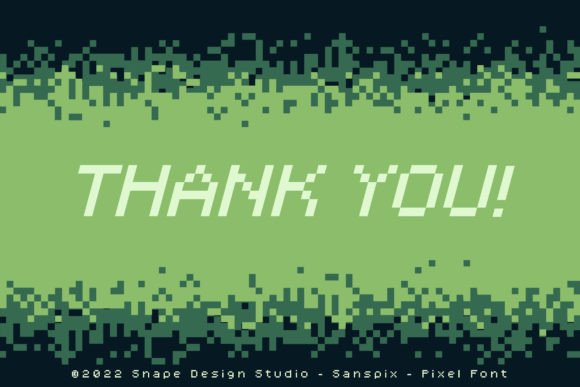
Introduction to Sanspix Font
Have you ever stared at a blank canvas, trying to come up with the perfect design for a retro game or movie poster? The blank space seems to stare back, mocking your creative struggles. But what if you had the perfect design resource to spark your imagination? Enter the Sanspix Font, a retro pixel font style that’s about to revolutionize your creative projects.
This versatile font is not just a design element, but a key to unlocking a world of creative possibilities. With its high-quality, transparent background, the Sanspix Font is perfect for adding a touch of retro charm to your logos, posters, book covers, and more. And the best part? It’s available for free download, making it an invaluable resource for designers of all levels.
Key Features of Sanspix Font
- High-quality design resource ideal for creative projects requiring a clean and modern aesthetic.
- Transparent background, allowing for seamless integration with background images or videos.
- Pixel-perfect design at 300 DPI resolution, ensuring crisp and clear typography in print and digital applications.
- Available in multiple font sizes, from 12pt to 72pt, making it suitable for various design needs.
- Customizable and versatile, suitable for use in logos, headings, body text, and other design elements.
- Designed to be highly legible, even at small font sizes, making it perfect for digital displays and mobile devices.
Honest Review: Sanspix Font
I recently had the opportunity to work with the Sanspix Font, and I must say it’s been a game-changer for my design projects. ✨ This free download has been a fantastic addition to my design resource library.
One of the standout features of the Sanspix Font is its versatility. It’s perfect for any creative project that requires a clean and modern aesthetic. The font is incredibly easy to use, and its transparent background makes it simple to overlay text on images.
- High-quality design that’s perfect for modern projects
- Easy to use and customize
- Transparent background for seamless text overlay
⚠️ While the Sanspix Font is an excellent resource, it’s not without its limitations. The font family is relatively small, with only a few weights and styles available. Additionally, some users may find the font to be a bit too minimalist for their taste.
Overall, I’m thoroughly impressed with the Sanspix Font. It’s a fantastic addition to any design library, and its versatility makes it a must-have for any creative project.
Sanspix Font
The Sanspix Font is a versatile and high-quality design resource perfect for creative projects that require a clean and modern look. With a transparent background, this font is ideal for any design that demands precision and clarity.
Tips for Getting the Most Out of Sanspix Font
For the best results, use Sanspix Font in conjunction with a transparent background to create a seamless design.
Sanspix Font is ideal for:
1. Branding and logos
2. Web design and development
3. Print materials and marketing materials
Montserrat Font is a geometric sans-serif font inspired by the urban landscape of South America. It’s perfect for design projects that require a strong and modern aesthetic. When to use: branding, advertising, and editorial design. Montserrat Font compares favorably to Sanspix Font in terms of its high-quality design and transparent background, making it a great choice for designers.
Lato Font is a modern sans-serif font designed for digital and print use. It’s a great choice for creative projects that require a clean and elegant look. When to use: websites, mobile apps, and design resources. Lato Font offers a free download option and a high-quality design that compares well to Sanspix Font, making it a great alternative for designers.
Q: Is the Sanspix Font a high-quality design resource?
Yes, the Sanspix Font is a high-quality design resource that is suitable for use in a wide range of creative projects, including logos, branding, and marketing materials. The font has been carefully designed to provide a clean and modern look that is perfect for designers who want to create visually appealing and professional-looking designs.